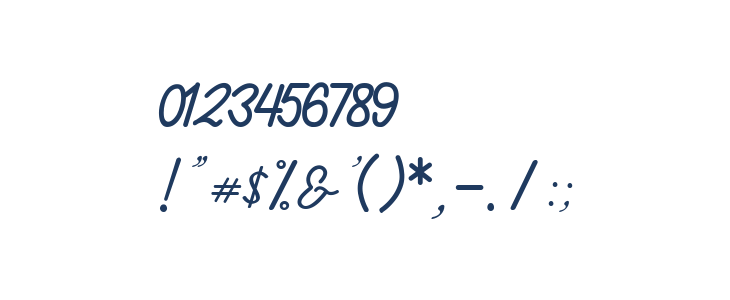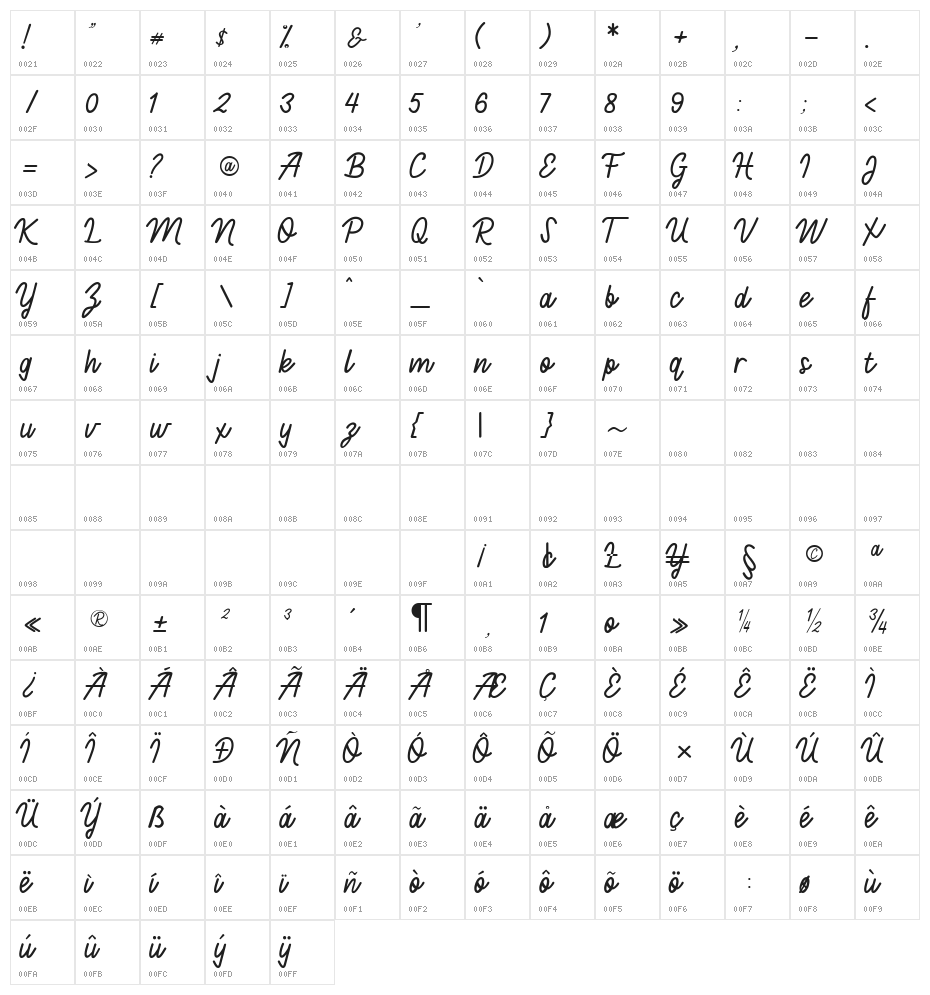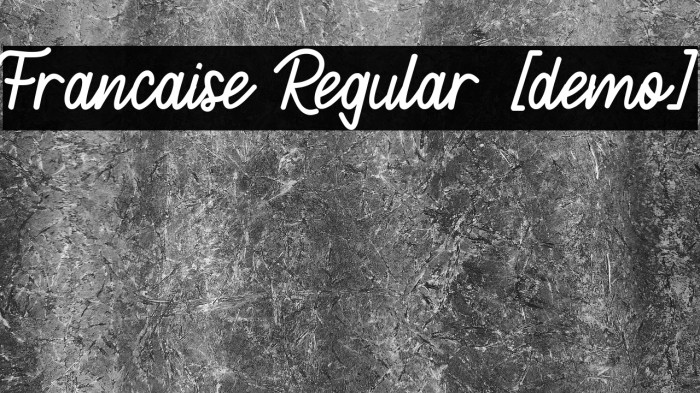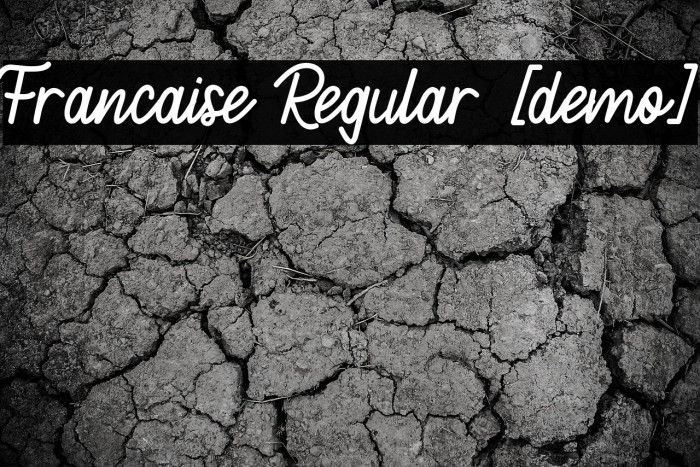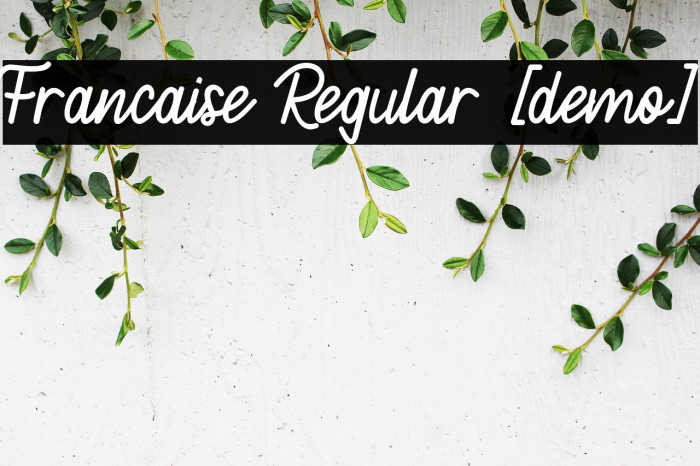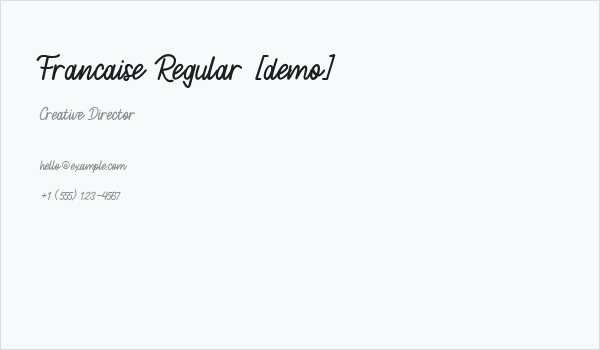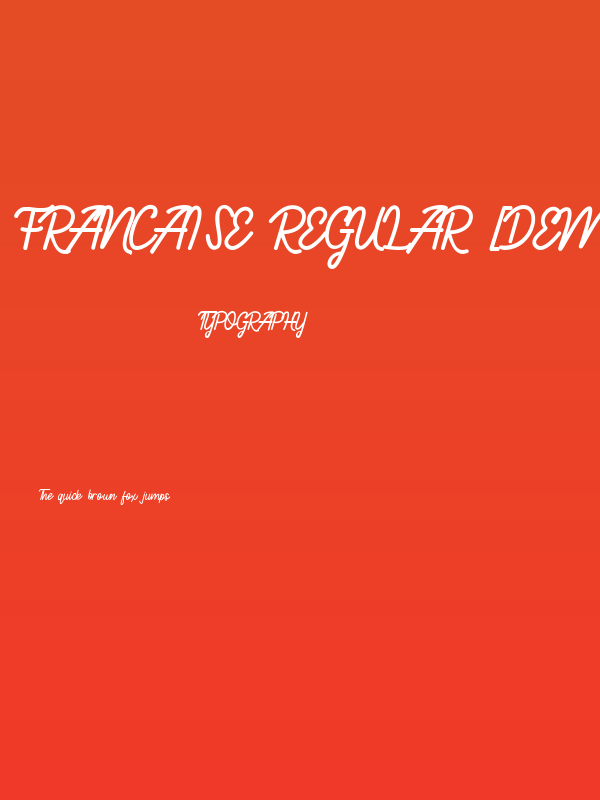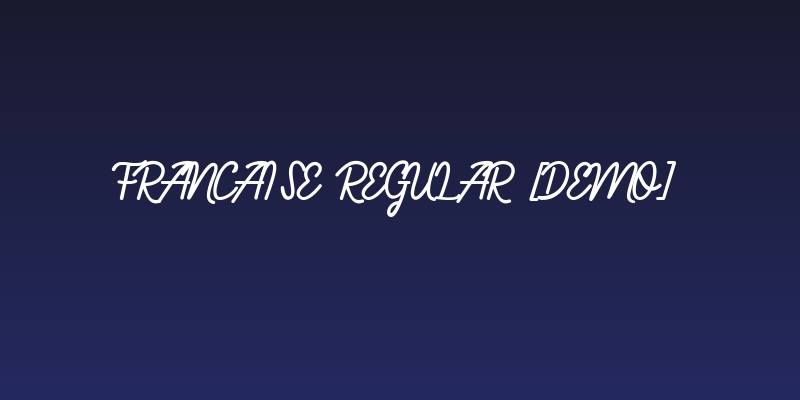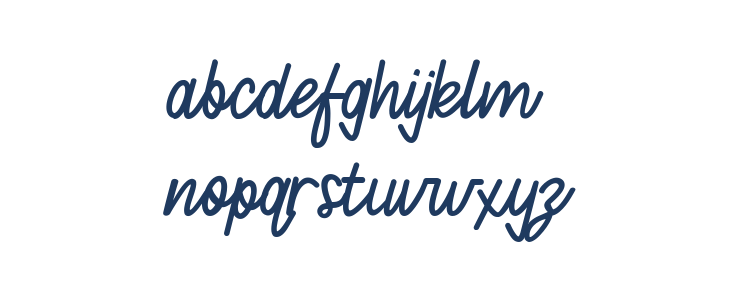
Francaise Regular [demo] Font
Francaise Regular [demo] Description
This font features a flowing, cursive style with elegant, interconnected letters that evoke a sense of sophistication and fluidity. The uppercase letters are bold and prominent, while the lowercase letters maintain a consistent, smooth flow. The numerals are distinct yet harmonize well with the overall script style. Special characters are crafted with the same attention to detail, ensuring a cohesive appearance across all glyphs. This font's design is reminiscent of classic calligraphy, making it suitable for projects that require a touch of elegance and tradition.